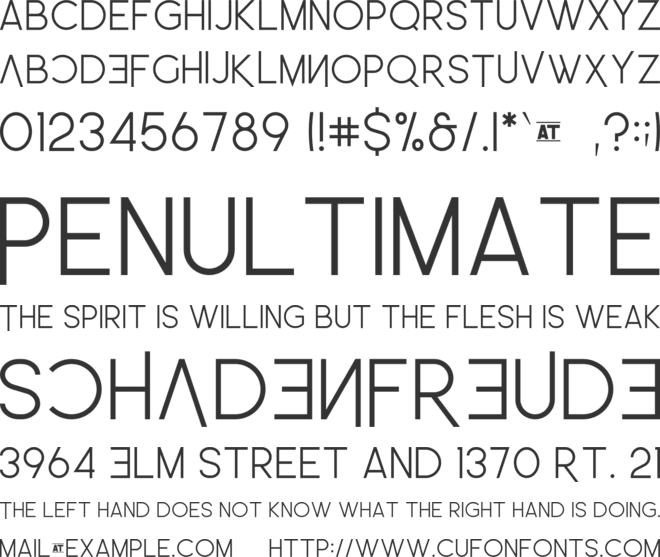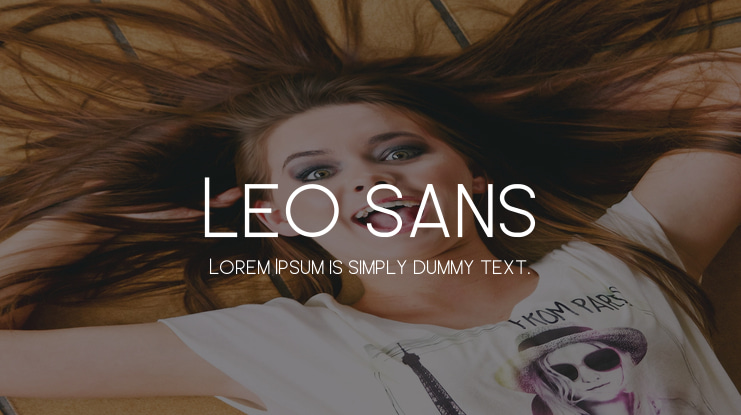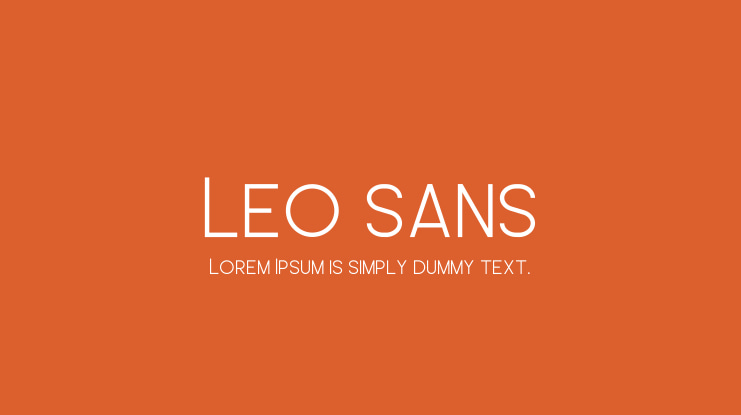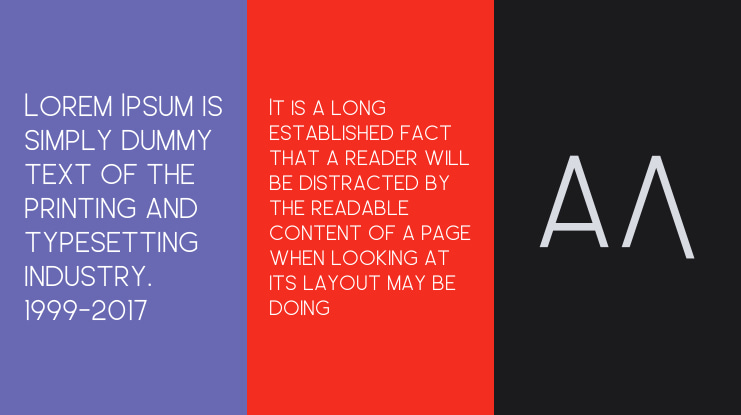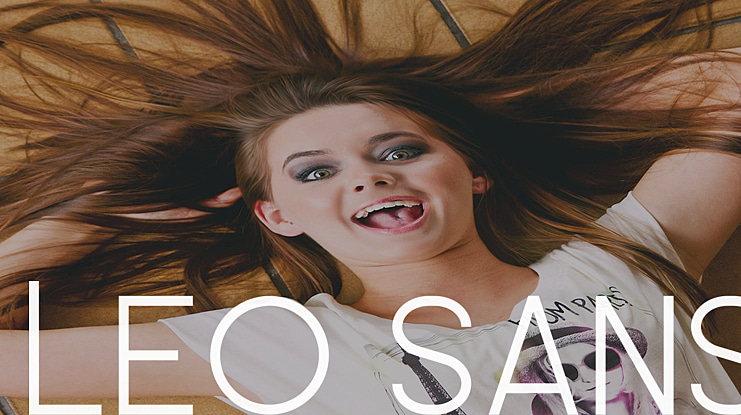
Leo Sans Font Family
Leo Sans PRO is a modern sans serif with a geometric touch. It comes in 10 weights, clean and modern caps, thereby creating more variability. The thin & bold weights are free of charge, so you can use them to your heart’s content. ​Weights: Thin, UltraLight, Light, Regular, Medium, SemiBold, Bold, ExtraBold, Black, Heavy.